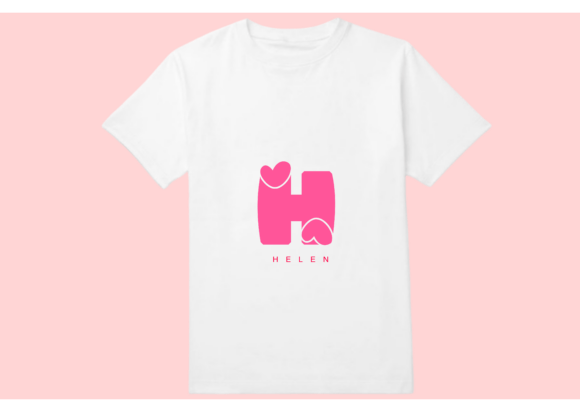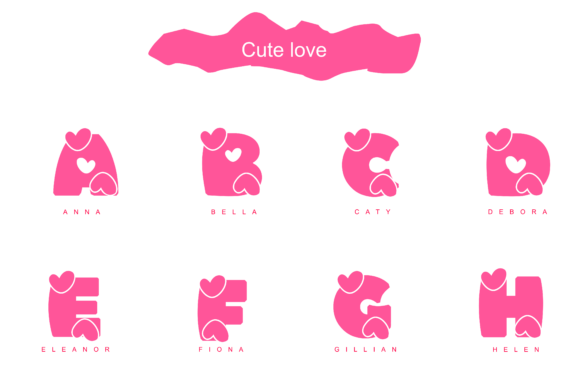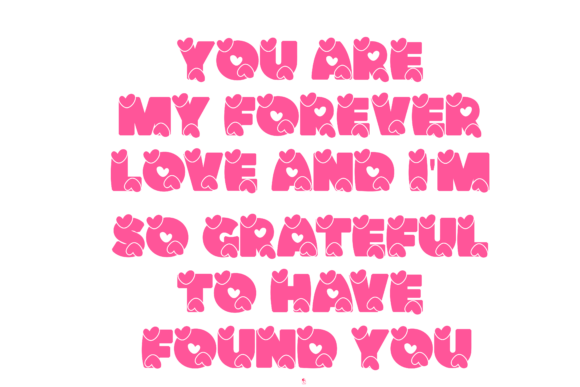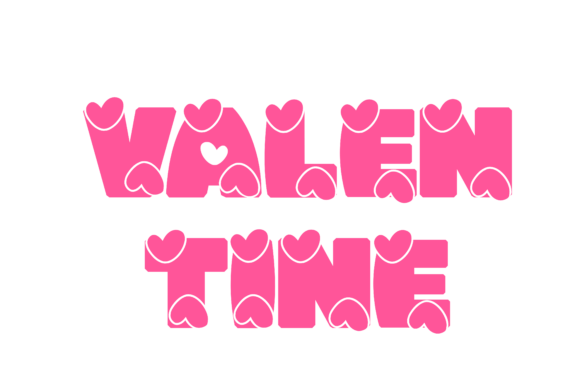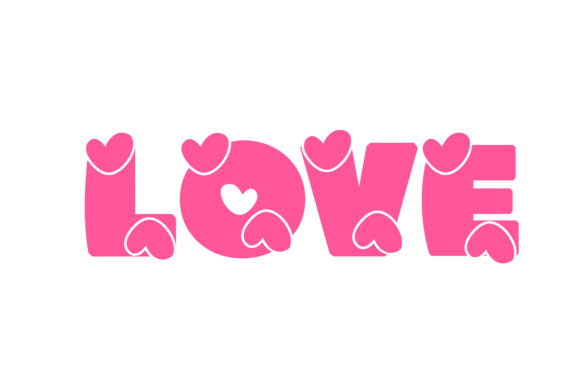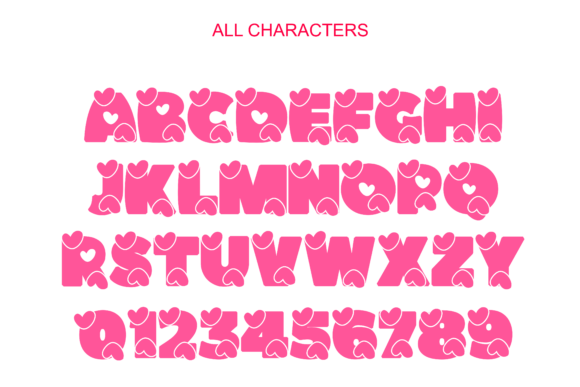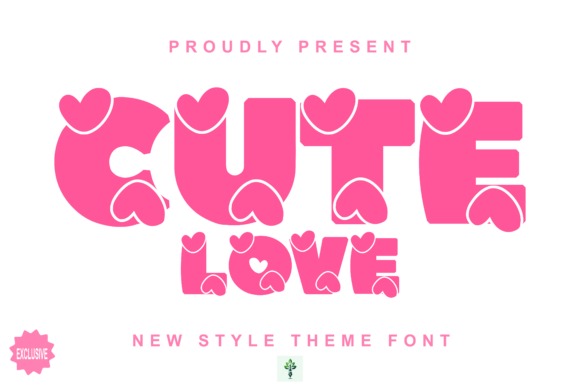
Discover the Vibrant World of Cute Love Font: Elevate Your Creativity
Are you ready to infuse your creative projects with a burst of energy and playfulness? Look no further than the Cute Love font, a revolutionary typeface that embodies the perfect blend of whimsy and charm. This delightful font is designed to add a touch of magic to your artistic endeavors, making it an essential tool for designers, crafters, and artists alike.
Unleash Your Creativity with Cute Love
Cute Love is more than just a font – it’s an experience. With its vibrant palette of colors and infectious energy, this pioneering typeface is sure to propel your creative journey into fresh, unexplored territories. Whether you’re working on a graphic design project, crafting a handmade card, or creating digital art, Cute Love is the perfect companion to help you express your unique vision.
One of the standout features of Cute Love is its unparalleled uniqueness. This font orchestrates a captivating symphony on your creative voyage, adding a touch of sophistication and elegance to your work. With Cute Love, you can:
• Add a pop of color and energy to your designs
• Create visually stunning text-based art
• Enhance your brand’s visual identity
• Make your projects stand out from the crowd
The Benefits of Using Cute Love Font
So why choose Cute Love font for your creative projects? Here are just a few benefits you can expect:
• Boost your creativity: With its vibrant colors and playful design, Cute Love is sure to inspire your creativity and take your projects to the next level.
• Stand out from the crowd: Cute Love’s unique design ensures that your projects will stand out from the crowd and grab attention.
• Enhance your brand’s visual identity: With Cute Love, you can create a consistent visual brand that reflects your personality and style.
In conclusion, Cute Love font is a game-changer for designers, crafters, and artists looking to add a touch of whimsy and charm to their creative projects. With its vibrant colors, playful design, and unparalleled uniqueness, Cute Love is sure to elevate your creativity and take your projects to the next level. So why wait? Discover the vibrant world of Cute Love font today and ignite your artistic adventure!